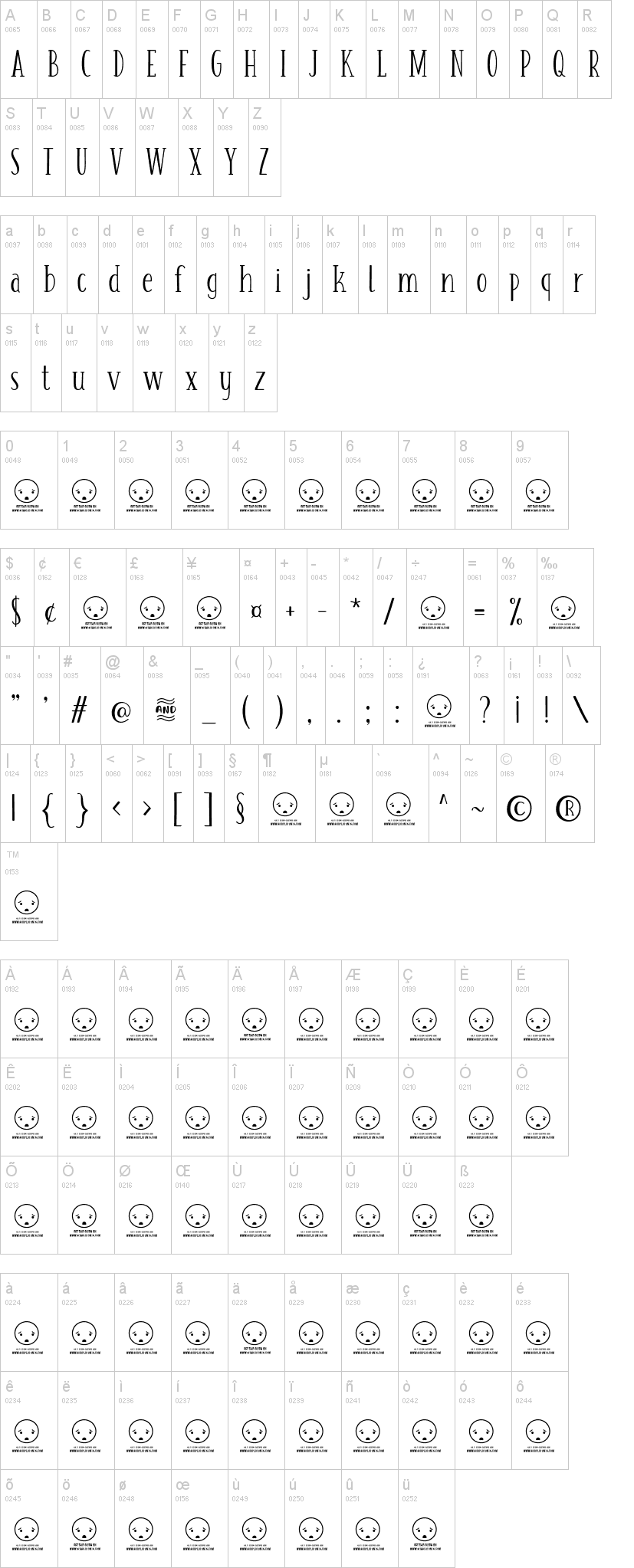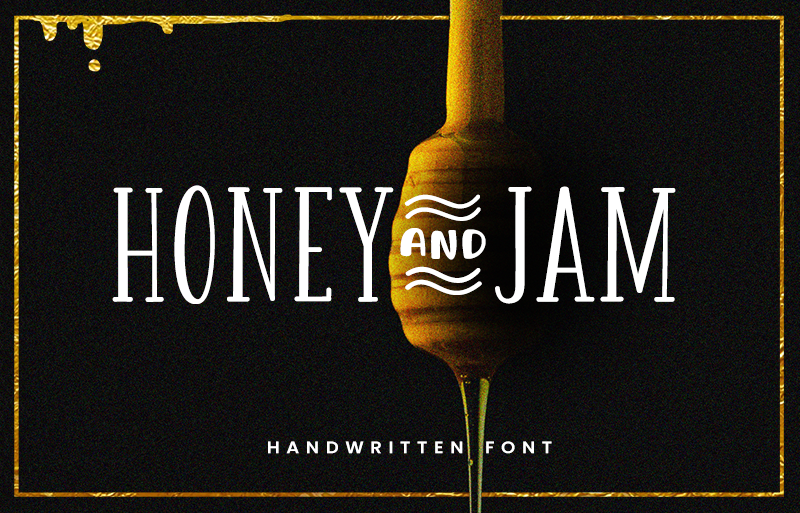
Note of the authorWere happy to share a demo of Honey and Jam, our latest classy and elegant handwritten styled font with yall! It features subtle serifs and looks good both in small letters as well as in CAPS.